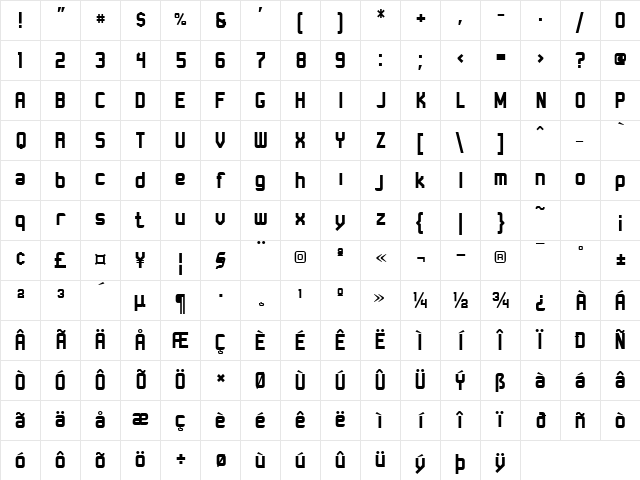
Robust ICG Bold
Design Context for Robust ICG
Robust ICG is a composed and adaptable typeface that performs quietly and consistently across a wide range of design contexts. Its bold stroke weight gives it real presence on the page.